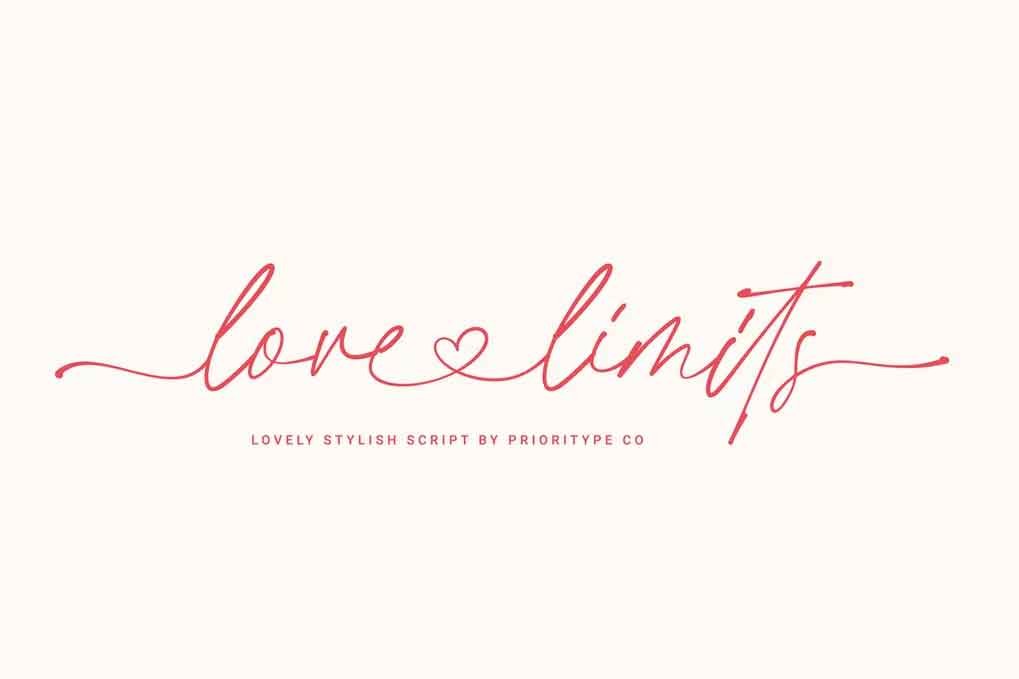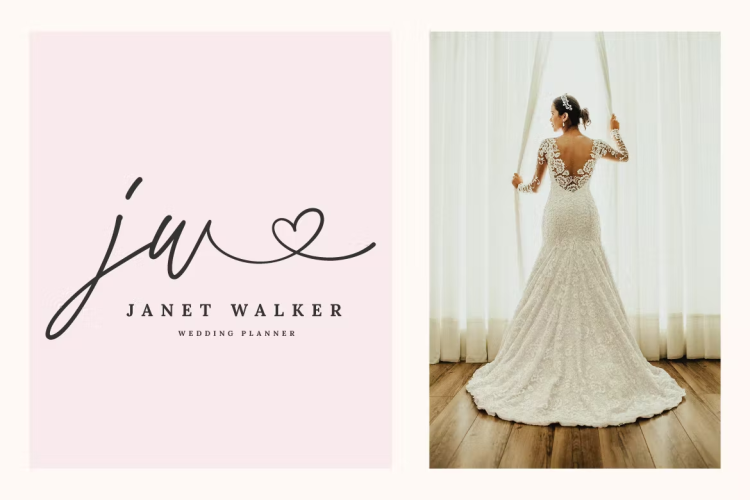
Love Limits Font
Stylish script fonts are here again to accompany your design projects. Equipped with unique alternative characters and ligatures that make it more natural. Suitable for branding, logotype, wedding invitations and others.
Love Limits Font is a Script And Handwritten font that brings a professional and versatile look to your projects. Stylish script fonts are here again to accompany your design projects.